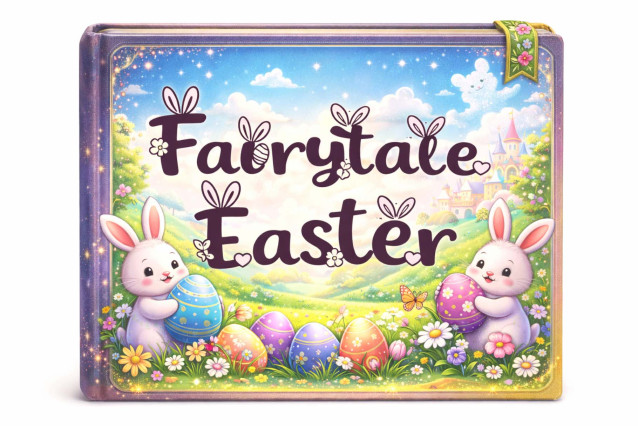
Easter Fabulous Font
“Easter Fabulous” is a unique and fun display font. It features uppercase and lowercase letters, numerals, punctuations, alternates, and multilingual support. It’s perfect for Easter, spring, summer, Christmas, cartoons, comics, fairy tales, children’s books, magazines, tattoos, stickers, Mother’s Day, embroidery, flowers, St. Patrick’s Day, and more.